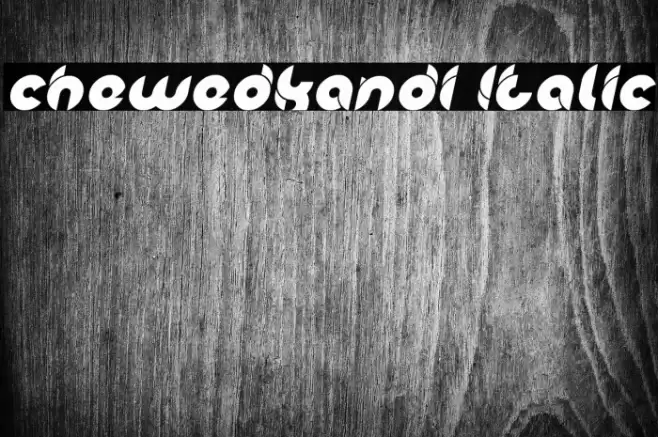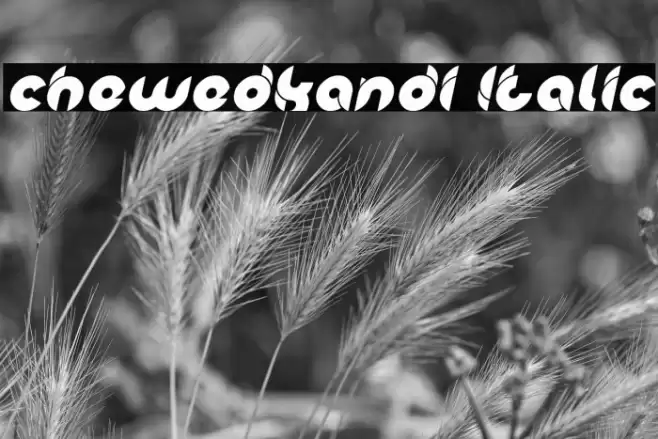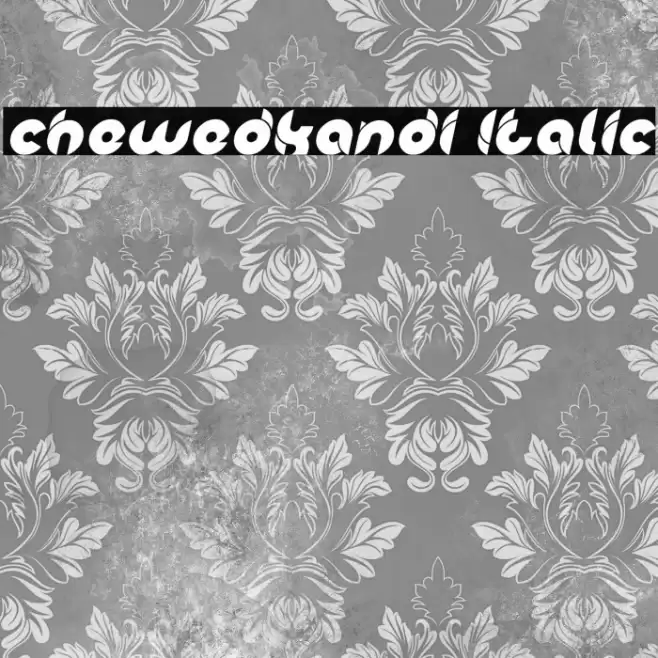
chewedkandi Italic Font
chewedkandi Italic Description
This font features a bold and dynamic style with a unique, abstract design. Each character is composed of thick, rounded shapes with distinct cutouts, creating a sense of movement and energy. The italic slant adds to its dynamic appearance, making it stand out in any context. The font's playful and modern aesthetic is perfect for creative projects that require a bold statement. Its distinctiveness lies in the combination of heavy strokes and geometric cutouts, which give it a futuristic and artistic feel. The characters are well-spaced, ensuring readability despite their unconventional design.
A bold, abstract font with dynamic, italicized characters and geometric cutouts from Uncategorized fonts.
- Proposed Projects: Ideal for branding, posters, album covers, and any project needing a modern, artistic touch.